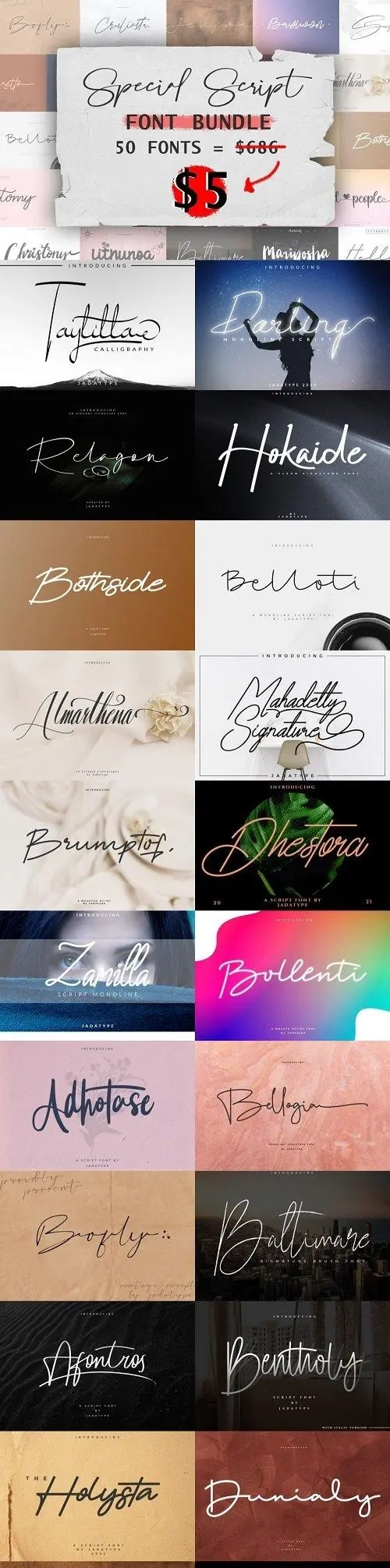
Special Script Font Bundle – 50 Fonts
Introducing the Special Script Font Bundle, featuring a stunning collection of 50 unique script fonts designed to elevate your creative projects. Each font in this bundle brings its own personality, perfect for a variety of applications.
• 50 distinct script fonts
• Variety of weights and styles
The fonts in this bundle are crafted with attention to detail, ensuring smooth curves and elegant lines. They are suitable for both personal and commercial use, making them ideal for branding, invitations, logos, and more.
When using these fonts, consider pairing them with clean sans-serif fonts for a balanced look. They are particularly effective in print materials, social media graphics, and digital designs.